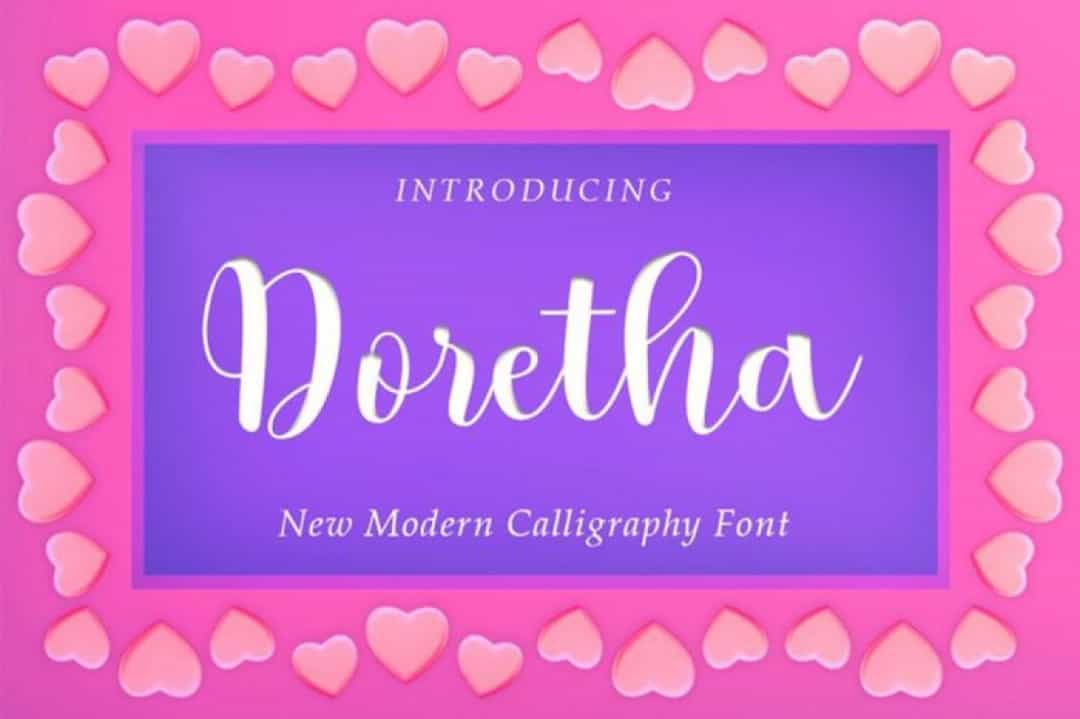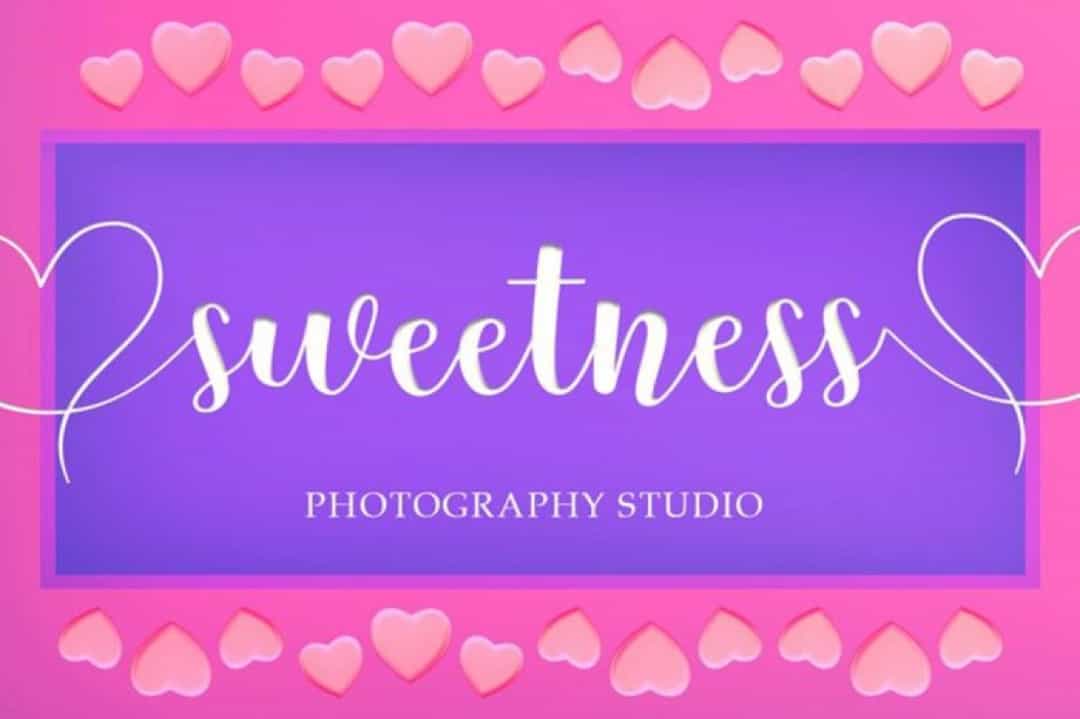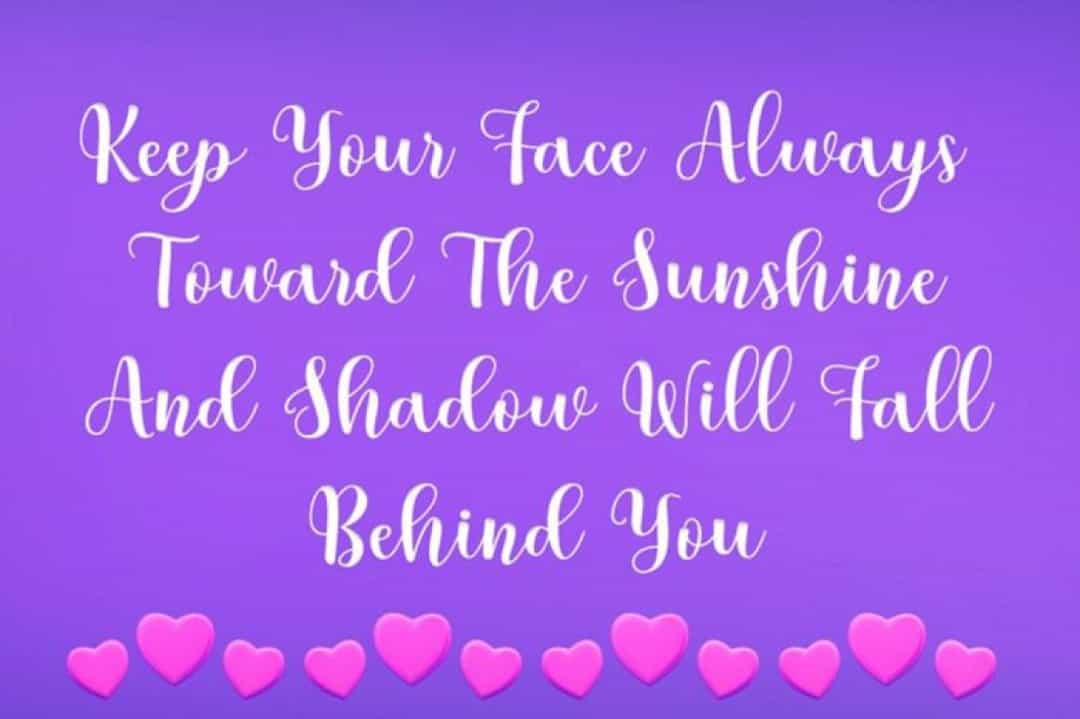
Doretha is a contemporary script font designed specifically for calligraphy that features variable baselines with an elegant yet modern touch, along with an expansive set of open type stylistic options. To use this font you will require software capable of supporting its Open Type features like Adobe Illustrator CS, Photoshop CC, Indesign or Microsoft Word 2010.